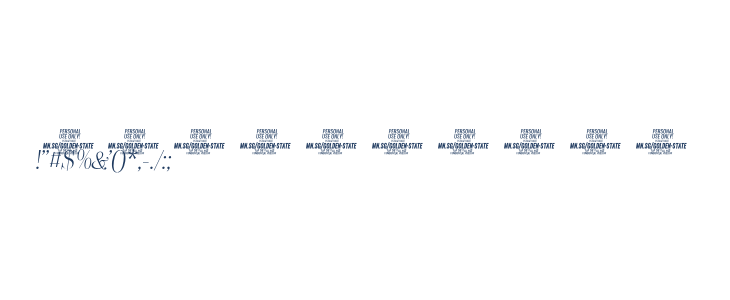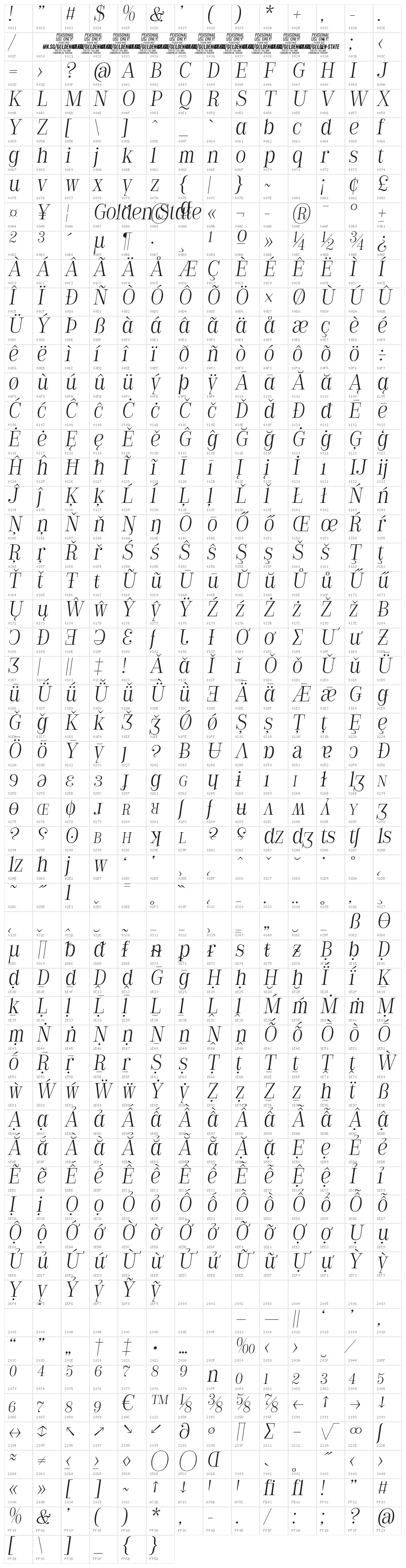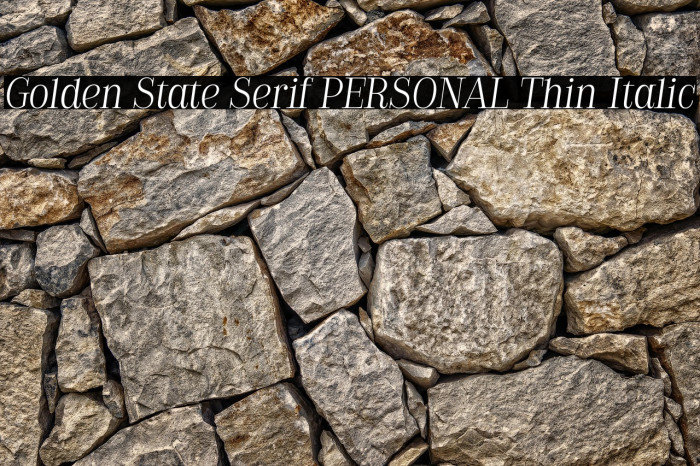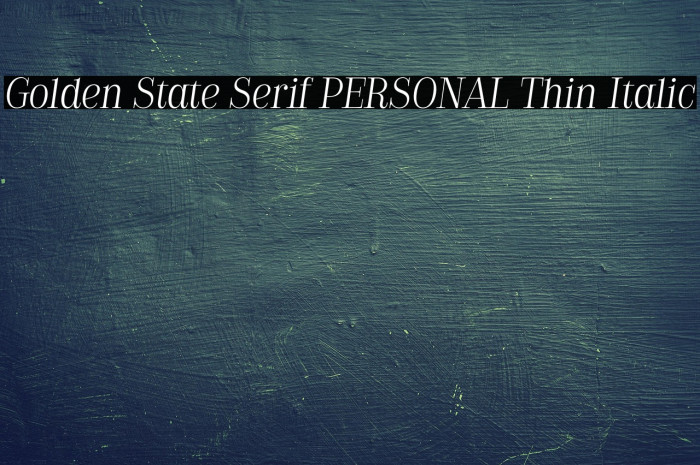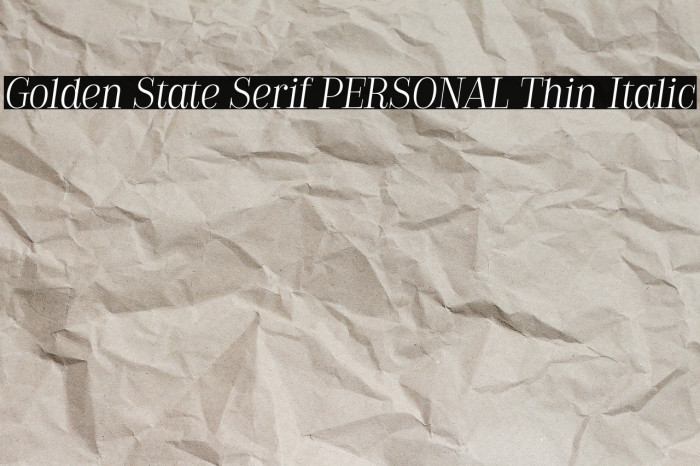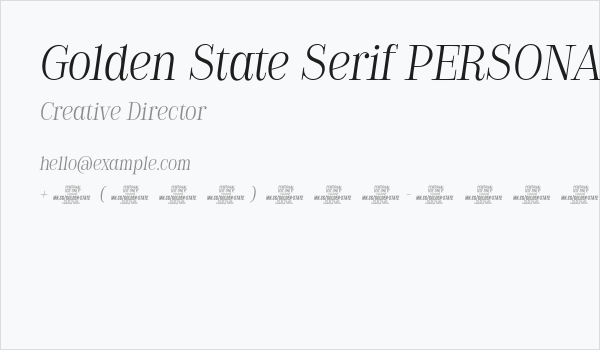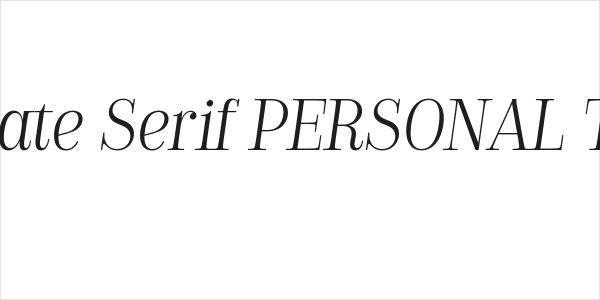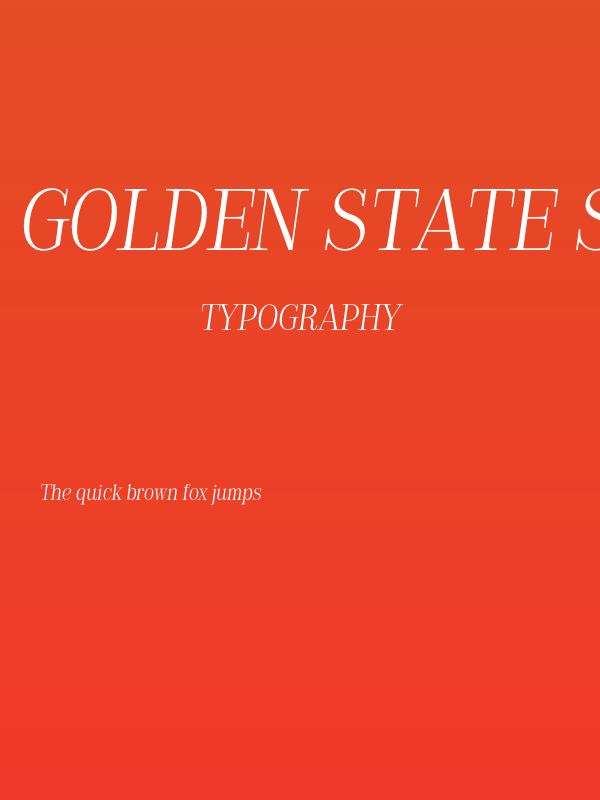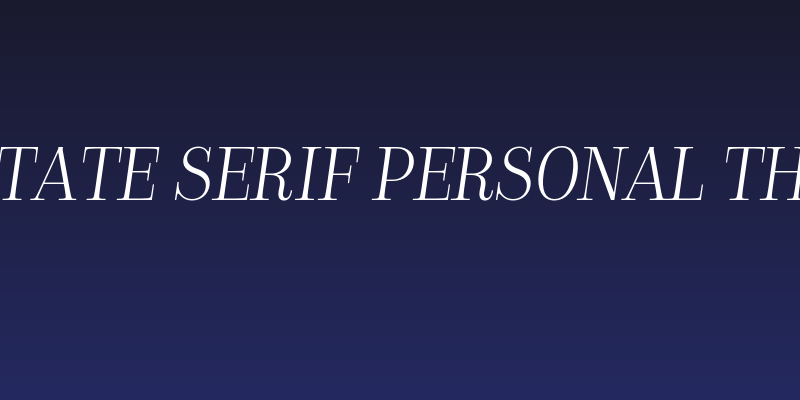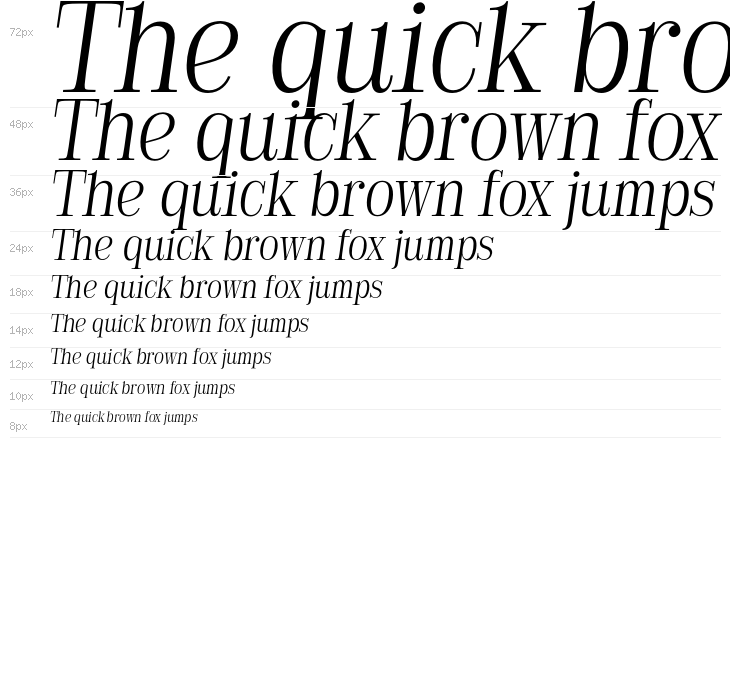
Golden State Serif PERSONAL Thin Italic Font
Golden State Serif PERSONAL Thin Italic Description
This elegant serif font features a thin, italicized style that exudes sophistication and grace. The characters are delicately crafted with a slight slant, giving them a dynamic and fluid appearance. The uppercase letters are tall and refined, while the lowercase letters maintain a consistent flow, enhancing readability. The numerals and special characters are designed with the same attention to detail, ensuring a cohesive look across all text elements. The font's thin strokes and high contrast between thick and thin lines add a touch of modernity, making it suitable for a variety of design applications.